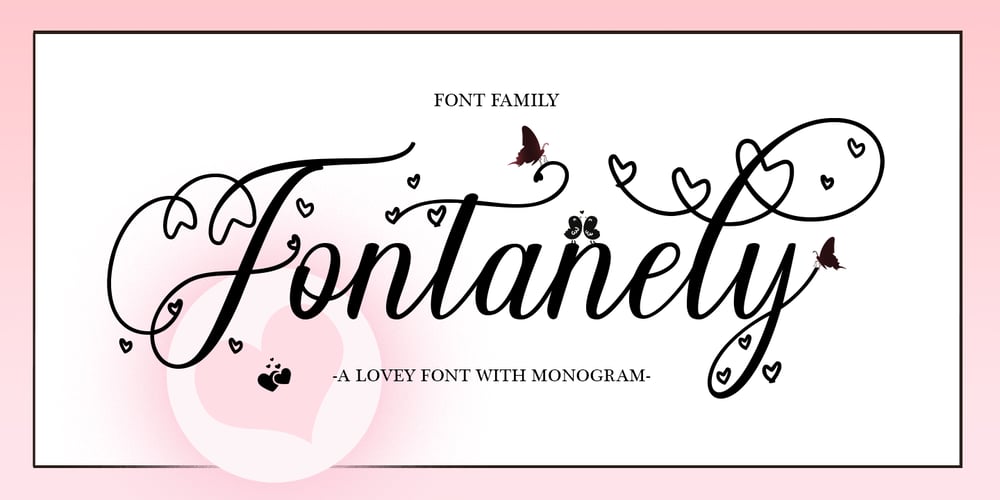
Fontanely Font Family was designed by Petterco Bagia and published by Petterco. Fontanely contains 3 styles and family package options. Fontanely is three unique blend Fonts. like dance letters, smooth, clean and simple. Fontanely are three Fonts perfect for weddings, events, invitations, companion cards, menu headers, displays, logos, blog sliders, packaging, greeting cards, etc.Fontanely includes alternate glyphs and beautiful swirls in fonts including style sets, Ligatures etc. The Open Type feature can be accessed using intelligent Open Type programs such as Adobe Illustrator CS, Adobe Indesign & CorelDraw X6-X7 and Microsoft Word. And this Font has provided PUA unicode (custom coded font). so that all alternative characters can be easily accessed in full by a craftsman or designer.Features:Basic Latin A-Z and a-zNumbers & PunctuationStyle Sets & FastenersPUA Encode (Custom Encoded Fonts)If you don’t have a program that supports OpenType features such as Adobe Illustrator and CorelDraw X Version, you can access all the alternative glyphs using Font Book (Mac) or Character Map (Windows). Using Windows Character Map with Adobe Photoshop ( PS)